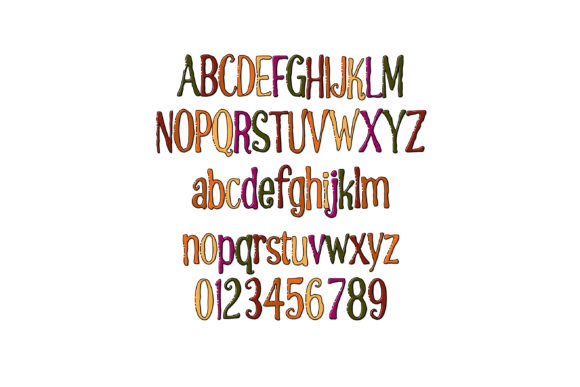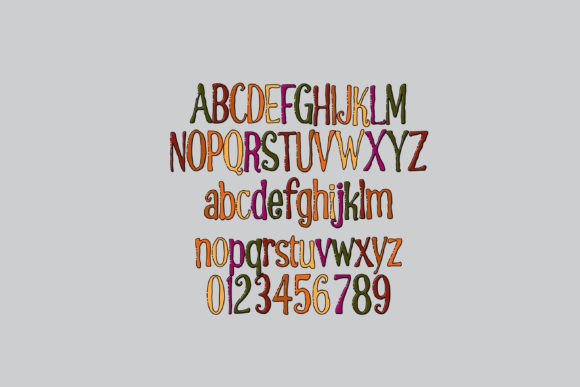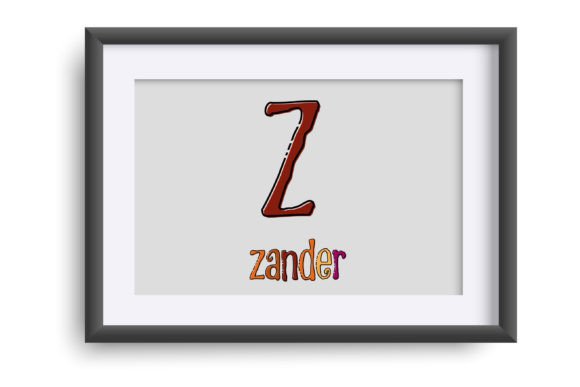
Introduction to September Smash Font
As you sit at your desk, surrounded by scraps of paper, glue sticks, and paint swatches, you’re brainstorming your next creative project. The perfect design resource can make all the difference in bringing your vision to life. That’s where the September Smash Font comes in – a full-color font that’s bursting with autumnal charm.
With its whimsical outline and vibrant color palette, this font is sure to add a playful touch to your titles, displays, and posters. The September Smash Font is a valuable asset for designers looking to elevate their work with a high-quality, free download. Whether you’re working on a personal project or a commercial design, this font is sure to impress. But be aware that color fonts may show as black in non-compatible programs – don’t worry, you’ll know when they shine in all their colorful glory.
Honest Review: September Smash Font
I recently stumbled upon the September Smash Font, and I must say it’s a great addition to my design resource arsenal. As a designer, I’m always on the lookout for unique and high-quality fonts that can elevate my creative projects.
The September Smash Font is a great example of a well-designed font that can add a touch of personality to any project. It’s perfect for those looking for a modern and edgy feel.
- Unique and modern design that sets it apart from other fonts
- Transparent background makes it easy to use on any design
- Only available in a limited number of weights, which may limit its versatility
- May not be suitable for projects that require a more traditional or classic font
Overall, I’m impressed with the September Smash Font and would definitely recommend it to designers looking for a unique and high-quality font. It’s a great addition to any design resource collection, and its free download makes it an even more attractive option.
The September Smash Font is a high-quality design resource perfect for creative projects. It features a transparent background, making it ideal for overlaying text or graphics on various backgrounds.
Tips for Getting the Most Out of September Smash Font
To get the most out of the September Smash Font, use it in bold, contrasting colors to make your text stand out. You can also experiment with different font sizes and styles to create a unique look.
The September Smash Font is perfect for a variety of creative projects, including:
- Blog posts and articles
- Infographics
- Business presentations